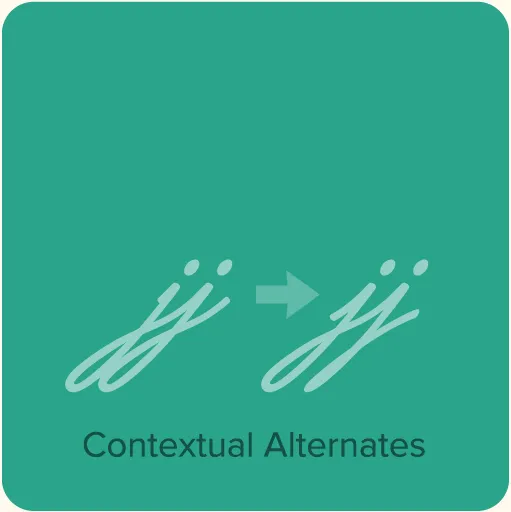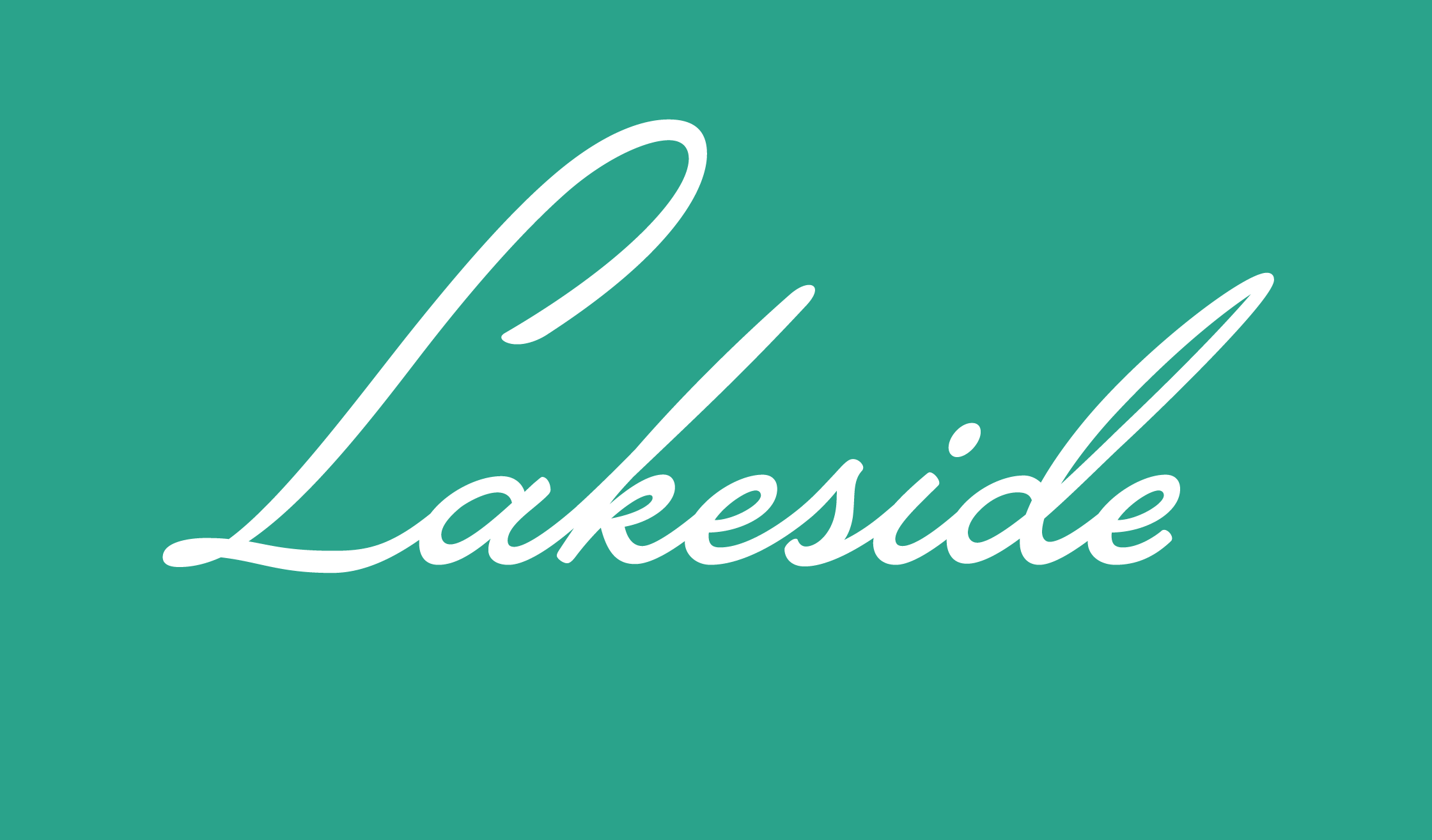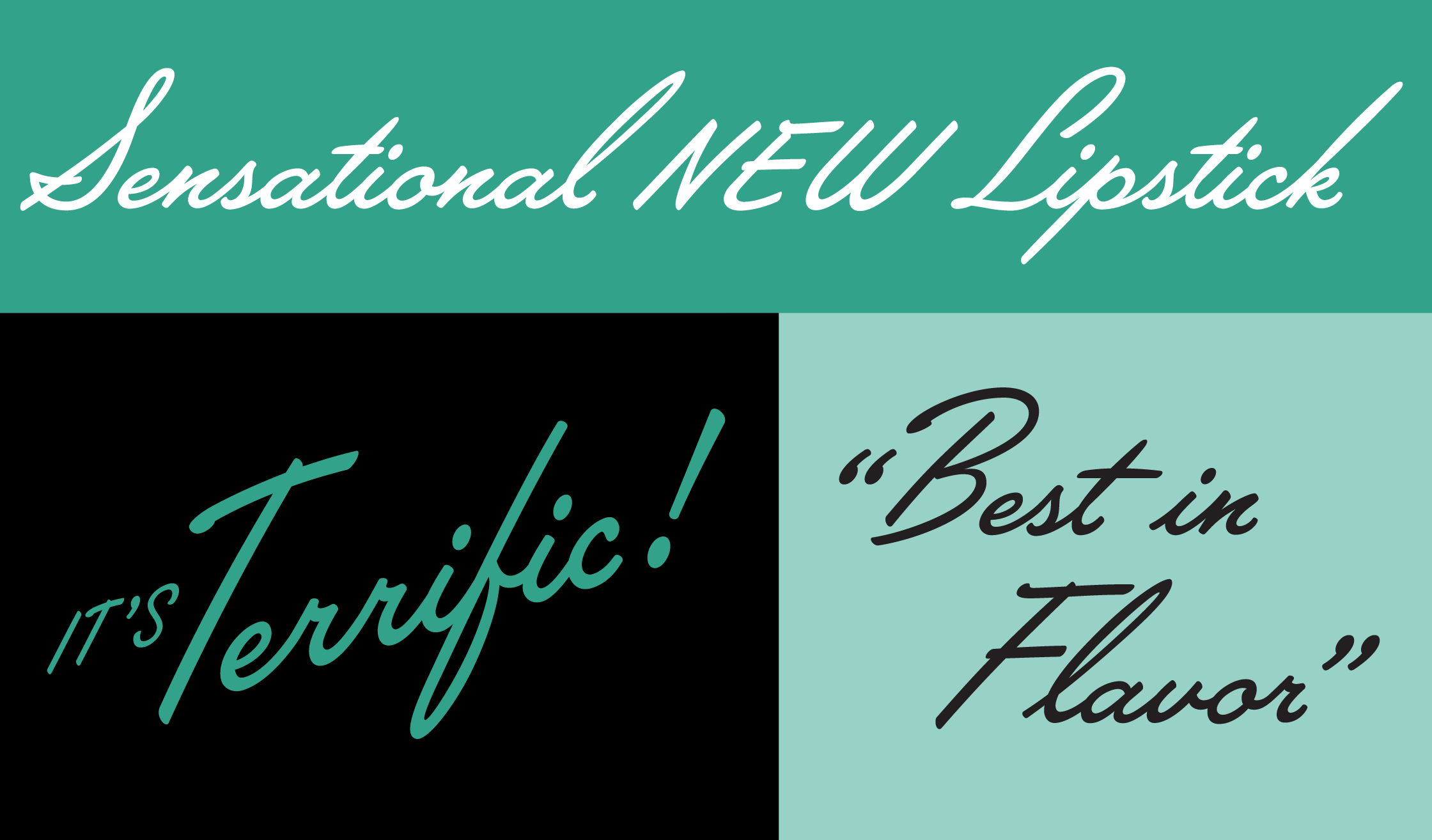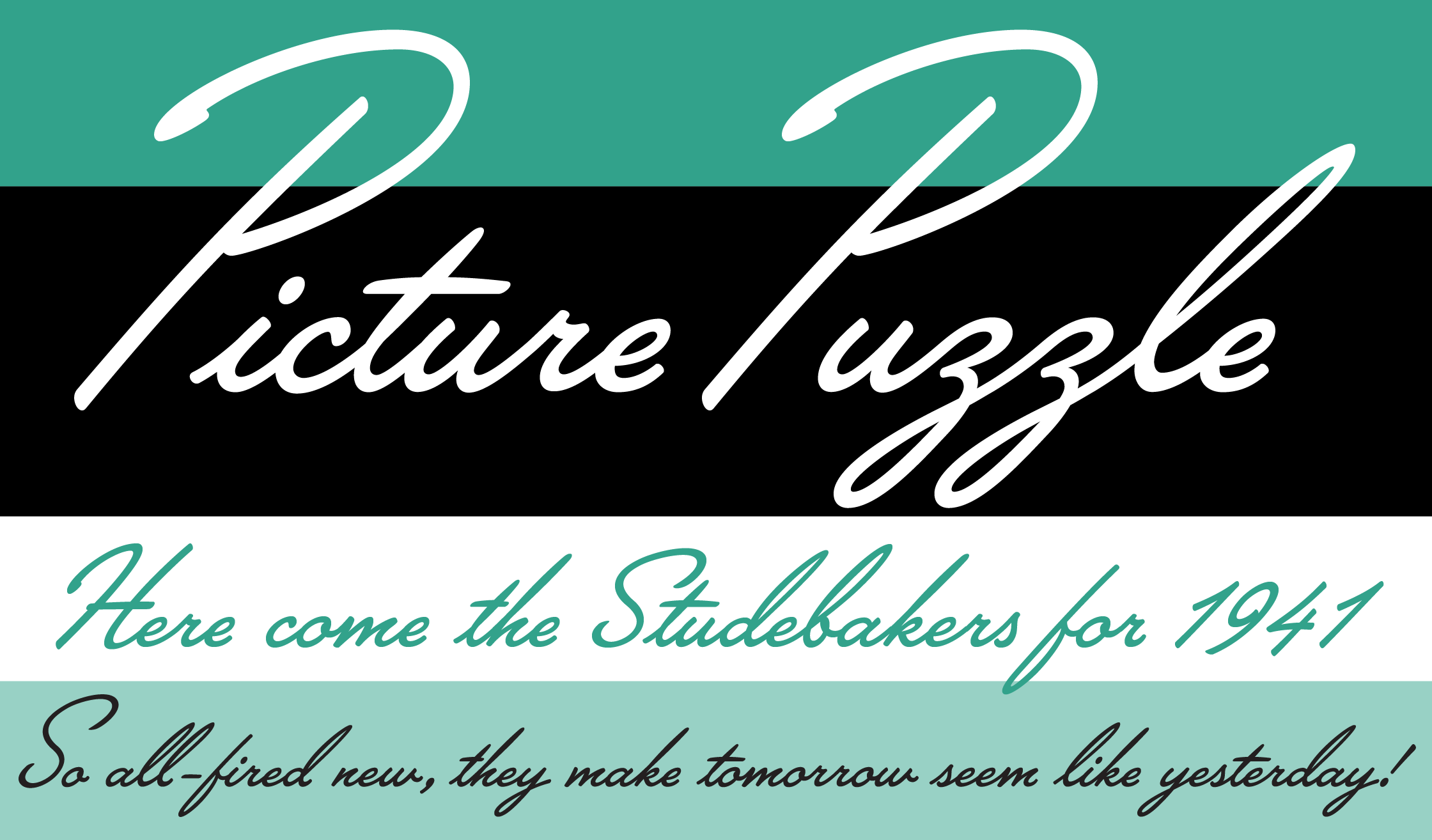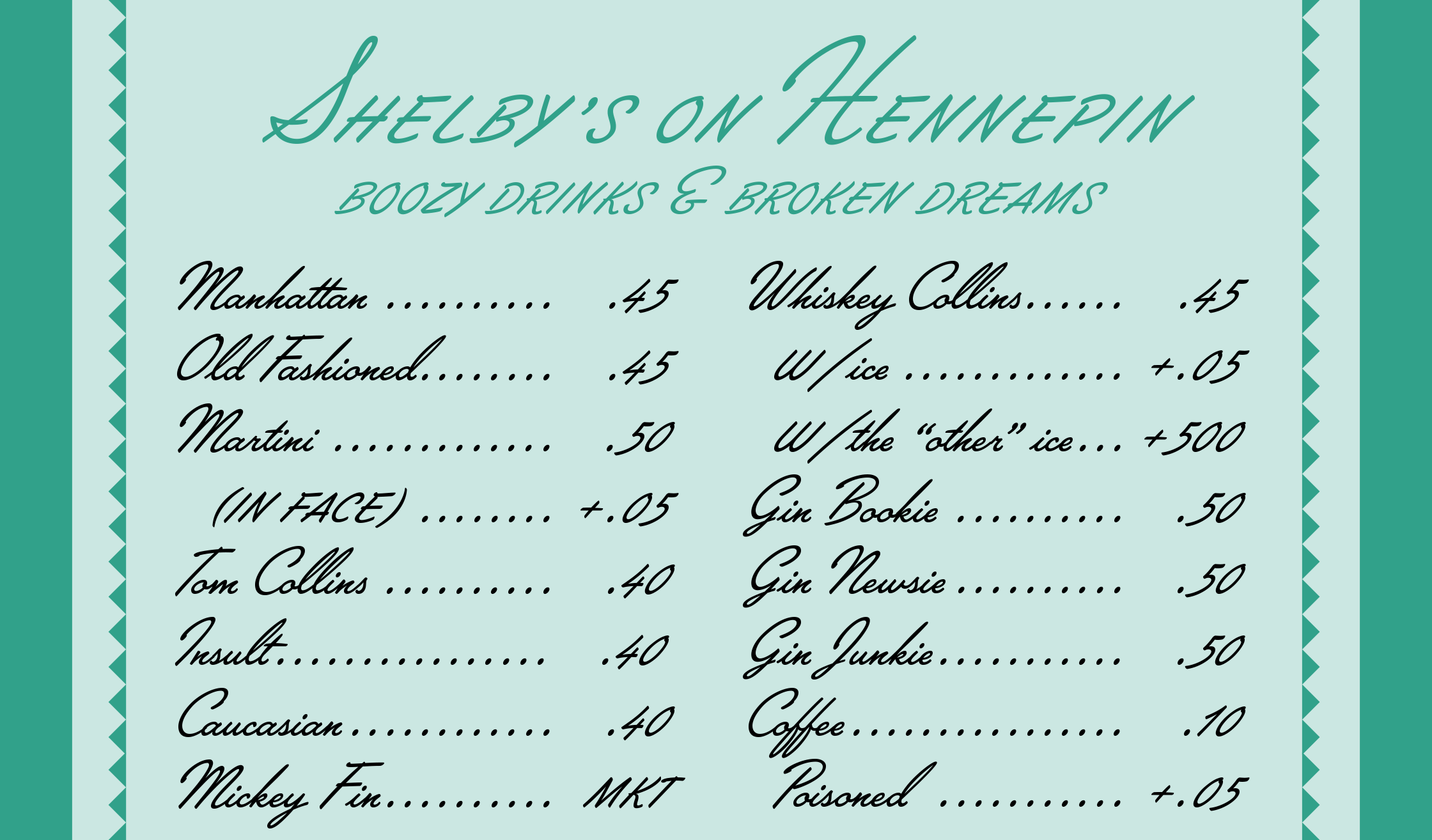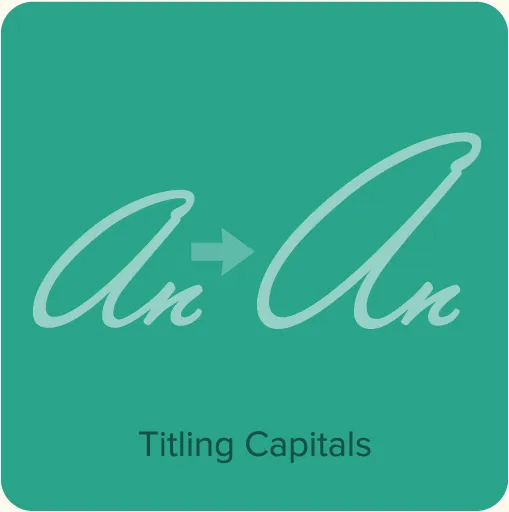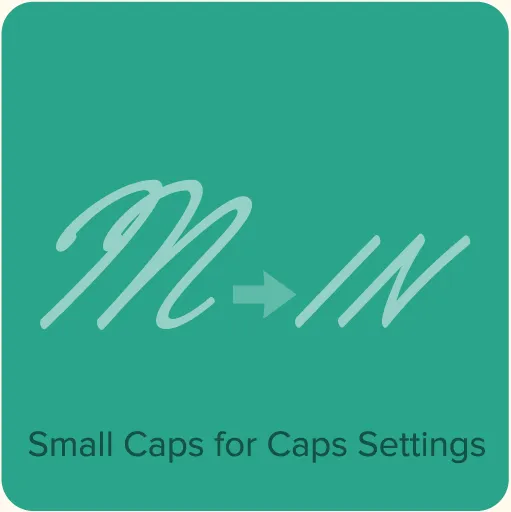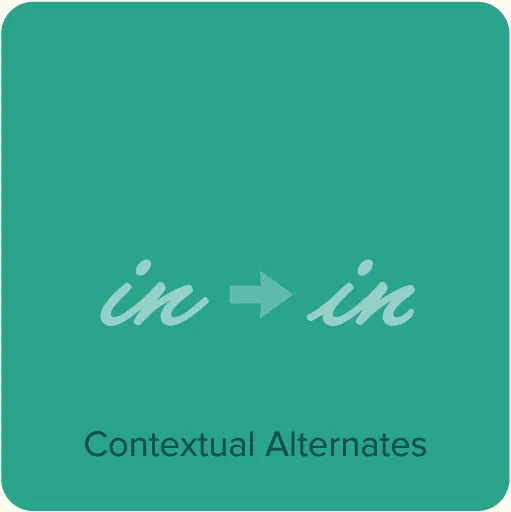
Lakeside (2008) is a flowing 1940s-style brush script, inspired by hand-lettered titles in Otto Preminger’s classic 1944 film noir movie “Laura.” Lakeside uses OpenType magic to automatically mimic real Script lettering, choosing the best letter shapes based on where they fall in a word and what letters are nearby. It also includes three sizes of capitals: Normal capitals for typical settings, tall capitals for a more elegant effect, plus a small, plain set of capitals for setting in all caps, something not usually possible with script faces.
- Lakeside features advanced OpenType magic to automatically choose the appropriate letter shapes as you type based on whether the letter appears at the beginning, middle or end of a word. The crossbar on the lowercase “t” extends itself if space allows.*
- Three different styles of caps: Normal caps, which are the same height as the lowercase ascenders; titling caps, which are about 50% taller than the normal caps; and a set of small, plain caps for setting acronyms, roman numerals or any other case that calls for all caps.*
- Alternate cap “S” (more formal style).*
- Extended language support for most Latin-based Western and Central European languages.
- Automatic, arbitrary fractions.*